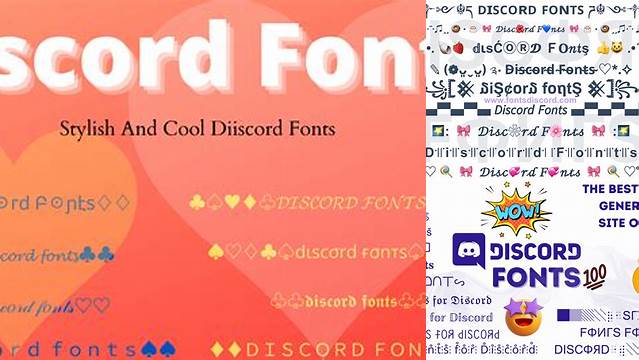
Discord Fonts: Make Your Text Cute & Stylish!
Hey guys! Want to make your Discord messages pop? You've come to the right place! Let's dive into how you can spice up your text with cute and stylish Discord fonts. It's all about expressing yourself, right? Whether you're looking to add a bit of flair to your server announcements or just want your personal messages to stand out, cool fonts are the way to go. So, buckle up, and let's get started!
1. Understanding Discord Font Basics
Before we jump into the fancy stuff, let's cover the basics. Discord uses Markdown, a simple formatting language, to style text. Knowing these basics is crucial for implementing cute fonts effectively. For example, surrounding text with single asterisks () makes it italic, while double asterisks () make it bold. Triple asterisks () make it bold and italic. Using single backticks () creates inline code`, and triple backticks (```) create code blocks. Understanding these Markdown elements allows you to mix and match fonts, adding flair while keeping the messages readable. It's the foundation upon which all your cute font experiments will be built. Think of it as the canvas before you start painting your masterpiece. Without a solid understanding of Markdown, achieving the desired cute aesthetic will be challenging, as you might end up with unreadable or poorly formatted text. Also, remember that different platforms might render Markdown slightly differently, so always double-check your formatting on both desktop and mobile to ensure consistency. By mastering these basics, you'll be well-equipped to create eye-catching and adorable Discord messages. Essentially, Discord font customization revolves around combining these Markdown styles to achieve unique and appealing visual effects. So, familiarize yourself with these basics, and you'll be one step closer to becoming a Discord font master!
2. Exploring Online Discord Font Generators
Okay, so you want cute Discord fonts, but you're not sure where to find them? No problem! Online Discord font generators are your best friend here. These tools let you type in your text and then convert it into various stylish fonts. Just copy and paste the result into Discord. It's super easy! There are tons of websites offering this service, like LingoJam, Cool Fancy Text Generator, and many more. Each site offers a different selection of fonts, so it's worth exploring a few to find the ones you like best. These generators work by using special Unicode characters that appear different but are still recognized as text. The beauty of these tools is that they require no technical skills. You don't need to download any software or install any plugins. Just type, click, and copy. However, keep in mind that some of these fancy fonts might not be readable by all devices or operating systems. Always test your fonts to make sure everyone in your server can see them correctly. Also, be aware of the character limits on Discord. Extremely long and complex fonts might take up more characters than you expect. Online Discord font generators are an excellent way to quickly and easily add some personality to your messages. So, go ahead and experiment with different fonts and find the ones that perfectly match your style and the vibe of your server.
3. Cute Font Styles for Discord: A Detailed Guide
Let's talk about specific cute font styles you can use on Discord! Think about bubbly fonts, cursive fonts, or even fonts with little stars and hearts. The possibilities are endless! Bubbly fonts, for example, can add a playful and friendly tone to your messages. Cursive fonts, on the other hand, can make your text look elegant and sophisticated. And fonts with stars and hearts? Well, those are just plain adorable! To use these styles, you'll typically rely on online font generators. Simply type your message into the generator, choose the style you want, and copy the result into Discord. But remember, readability is key. While it's fun to experiment with different styles, you want to make sure your messages are still easy to read. Avoid fonts that are too cluttered or distorted, as these can strain the eyes and make your messages difficult to understand. Also, consider the context of your message. A bubbly font might be perfect for a casual conversation, but it might not be appropriate for an important announcement. Choose your fonts wisely, and always prioritize clarity. The goal is to enhance your messages, not to make them confusing. By carefully selecting and using cute font styles, you can add a personal touch to your Discord communications and create a more engaging and enjoyable experience for everyone.
4. Combining Fonts for Maximum Cuteness
Why stick to just one font when you can mix and match? Combining different font styles can create a visually appealing and unique effect. For example, you could use a bold font for headings and a cursive font for the main text. Or you could use a bubbly font for emphasis. The key is to use different fonts in a way that complements each other. You don't want to create a visual mess! Start by choosing a primary font that you'll use for most of your text. Then, select one or two secondary fonts to use for headings, subheadings, or emphasis. Make sure the fonts you choose have a similar vibe. For example, if you're using a playful font, you might want to avoid using a formal font. Experiment with different combinations until you find something you like. Also, pay attention to the spacing between letters and words. Some fonts might require more spacing than others. Adjust the spacing as needed to ensure readability. Combining fonts can be a fun and creative way to add personality to your Discord messages. Just remember to use restraint and prioritize readability. With a little practice, you'll be able to create stunning visual effects that will impress your friends and followers.
5. Using Symbols to Enhance Your Cute Fonts
Okay, let's talk symbols! Adding symbols to your text can make it even cuter. Think about hearts, stars, flowers, and other adorable icons. You can find symbols online or use the built-in symbol keyboard on your device. To insert symbols into your Discord messages, simply copy and paste them from another source. There are websites dedicated to providing all sorts of cool symbols. Just search for "Unicode symbols" or "aesthetic symbols" to find a wealth of options. When using symbols, it's important to use them sparingly. Too many symbols can make your text look cluttered and overwhelming. Use them to highlight important words or phrases, or to add a touch of whimsy to your messages. For example, you could add a heart symbol next to a friend's name, or a star symbol to mark an important announcement. Also, consider the meaning of the symbols you use. Make sure they're appropriate for the context of your message. You don't want to accidentally send the wrong message by using a symbol with a negative connotation. Using symbols can be a great way to add personality and flair to your Discord messages. Just remember to use them judiciously and choose symbols that are relevant and meaningful.
6. Discord Text Formatting Codes
Discord uses Markdown, which involves specific formatting codes to style your text. Knowing these codes is essential for making your fonts cute. Let's break it down: surrounding text with single asterisks () makes it italic. Double asterisks () make it bold. Triple asterisks () make it bold and italic. Using single backticks () creates inline code`, and triple backticks (```) create code blocks. You can also use the underscore (_) for italics (though asterisks are more common) and tildes (~) for strikethrough. For example, this text will be crossed out. Mastering these codes allows you to create a variety of effects. You can use bold text to highlight important information, italic text to add emphasis, and strikethrough text to indicate something that's no longer relevant. You can also use inline code to display code snippets or commands. The key is to use these codes in a way that enhances your messages and makes them easier to read. Avoid overusing formatting, as this can make your text look cluttered and confusing. Also, remember that different platforms might render Markdown slightly differently, so always double-check your formatting on both desktop and mobile to ensure consistency. By understanding and using Discord's text formatting codes, you'll be able to create more engaging and effective messages.
7. Mobile vs. Desktop Font Compatibility on Discord
One thing to keep in mind is that font compatibility can vary between mobile and desktop versions of Discord. Some fonts that look great on your computer might not display correctly on someone's phone, and vice versa. To ensure that your cute fonts look good for everyone, it's best to stick to fonts that are widely supported. Standard Unicode fonts are generally safe, as they're recognized by most devices and operating systems. However, some of the more exotic fonts generated by online tools might not be universally compatible. Before you start using a font extensively, it's a good idea to test it on both a mobile device and a desktop computer. Ask a friend to check if they can see the font correctly on their device. If you notice any issues, try using a different font or adjusting your formatting. You can also try using a font generator that specifically optimizes fonts for mobile devices. These generators typically use fonts that are more likely to be compatible across different platforms. Ultimately, the goal is to create messages that are accessible and enjoyable for everyone. By being mindful of font compatibility, you can avoid frustrating your friends and followers and ensure that your messages are always clear and readable.
8. Making Server Announcements with Cute Fonts
Server announcements are a great way to use cute fonts to grab attention. A well-formatted announcement can make your server look more professional and engaging. When creating announcements, it's important to use fonts that are both eye-catching and easy to read. Avoid fonts that are too cluttered or distorted, as these can make your announcements difficult to understand. Instead, opt for fonts that are clean and simple, but still have a touch of personality. You can also use different font sizes and styles to highlight important information. For example, you could use a larger, bolder font for the title of your announcement, and a smaller, regular font for the body text. Adding symbols or emojis can also help to make your announcements more visually appealing. Just remember to use them sparingly, and choose symbols that are relevant to the topic of your announcement. Before you post an announcement, it's always a good idea to preview it to make sure it looks good on both desktop and mobile devices. Ask a friend to take a look and provide feedback. By taking the time to create well-formatted announcements, you can keep your server members informed and engaged.
9. Cute Fonts for Discord Nicknames
Your Discord nickname is a prime spot to show off your cute font skills! It's a way to personalize your identity and stand out from the crowd. To change your nickname, go to your server settings and look for the "Change Nickname" option. From there, you can enter your new nickname using your favorite cute font. Keep in mind that Discord has a character limit for nicknames, so you might need to get creative to fit your desired font. Also, be aware that some fonts might not be compatible with Discord's nickname system. If your nickname doesn't display correctly, try using a different font or simplifying your formatting. It's also important to choose a nickname that's appropriate for the server you're in. Avoid using nicknames that are offensive or disruptive. The goal is to express yourself in a fun and creative way, while still respecting the rules and guidelines of the server. Using cute fonts for your Discord nickname is a great way to add a personal touch to your online presence and make a memorable impression on other members.
10. Adding Flair to Discord Status with Cute Fonts
Your Discord status is another place where you can use cute fonts to express yourself. Whether you're sharing your current mood, promoting your social media, or just adding a bit of humor, a stylish font can make your status message stand out. To change your status, click on your profile picture in the bottom left corner of the Discord window. Then, select "Set a custom status." From there, you can enter your status message using your favorite cute font. Keep in mind that Discord has a character limit for status messages, so you'll need to be concise. Also, be aware that some fonts might not be compatible with Discord's status system. If your status doesn't display correctly, try using a different font or simplifying your formatting. It's also a good idea to update your status regularly to keep it fresh and engaging. A stale status message can make you look inactive or disinterested. Using cute fonts for your Discord status is a great way to add personality and flair to your online presence and let people know what you're up to.
11. How to Create Custom Cute Fonts
If you're feeling adventurous, you can even try creating your own custom cute fonts. This is a more advanced technique, but it can be a lot of fun. There are several online tools and software programs that allow you to design your own fonts. Some popular options include FontStruct, BirdFont, and FontForge. These tools provide a range of features for creating and editing fonts, including drawing tools, character maps, and kerning adjustments. Creating a font from scratch can be a time-consuming process, but it can also be incredibly rewarding. You'll have complete control over every aspect of your font, from the shape of the letters to the spacing between them. When designing a cute font, think about the overall aesthetic you want to achieve. Do you want it to be playful and whimsical, or elegant and sophisticated? Consider the types of symbols and embellishments you want to include. Once you've created your font, you'll need to export it in a format that's compatible with Discord. The most common format is TTF (TrueType Font). After exporting your font, you can use it in Discord by copying and pasting the characters into your messages. Creating custom cute fonts is a great way to express your creativity and make your Discord communications truly unique.
12. Avoiding Font Clutter: Readability Matters
While it's fun to experiment with cute fonts, it's important to avoid font clutter. Too many different fonts and styles can make your messages look messy and difficult to read. Readability should always be your top priority. When choosing fonts, opt for ones that are clean and simple, but still have a touch of personality. Avoid fonts that are too cluttered or distorted, as these can strain the eyes and make your messages difficult to understand. It's also important to use different font sizes and styles sparingly. Too much variation can be distracting and confusing. Stick to a consistent style throughout your messages. Use bold text to highlight important information, italic text to add emphasis, and regular text for the body of your message. When using symbols or emojis, use them judiciously. Too many symbols can make your text look cluttered and overwhelming. Use them to highlight important words or phrases, or to add a touch of whimsy to your messages. By avoiding font clutter and prioritizing readability, you can ensure that your messages are clear, engaging, and enjoyable to read.
13. Best Cute Fonts for Different Discord Themes
Choosing the right cute fonts depends on the Discord theme you're using. A font that looks great on a light theme might not work as well on a dark theme, and vice versa. When using a light theme, opt for fonts that are dark and easy to read. Avoid fonts that are too light or thin, as these can be difficult to see against a bright background. Some good options for light themes include bold sans-serif fonts, such as Arial or Helvetica. When using a dark theme, opt for fonts that are light and easy to read. Avoid fonts that are too dark or heavy, as these can be overwhelming against a dark background. Some good options for dark themes include light sans-serif fonts, such as Open Sans or Lato. You can also experiment with different font colors to find what works best for your theme. For example, you could use a bright color for headings and a more subdued color for the body text. Ultimately, the best way to choose cute fonts for your Discord theme is to experiment and see what looks good to you. Try out different fonts, sizes, and colors until you find a combination that you're happy with.
14. Making Your Discord Profile Aesthetic with Fonts
Your Discord profile is a great place to showcase your aesthetic using fonts. A well-designed profile can make a great first impression and help you stand out from the crowd. You can customize several aspects of your profile, including your username, status, and about me section. When choosing fonts for your profile, consider the overall aesthetic you want to achieve. Do you want it to be cute and playful, or elegant and sophisticated? Choose fonts that reflect your personality and style. You can use different fonts for different sections of your profile. For example, you could use a bold font for your username, a cursive font for your status, and a regular font for your about me section. It's also important to keep readability in mind. Avoid fonts that are too cluttered or distorted, as these can make your profile difficult to read. Stick to fonts that are clean and simple, but still have a touch of personality. By carefully choosing fonts for your Discord profile, you can create a visually appealing and engaging online presence.
15. Cute Fonts for Specific Discord Channels
Using cute fonts can be tailored to specific Discord channels to enhance the channel's theme or purpose. For example, a gaming channel might benefit from a font that's bold and energetic, while a general chat channel might use a more casual and friendly font. When choosing fonts for a specific channel, consider the channel's topic and the tone you want to convey. If the channel is dedicated to a particular game, you might want to use a font that's inspired by the game's logo or artwork. If the channel is for sharing memes and funny content, you might want to use a font that's playful and whimsical. It's also important to consider the readability of the fonts you choose. Avoid fonts that are too cluttered or distorted, as these can make it difficult to follow the conversation. Stick to fonts that are clean and simple, but still have a touch of personality. You can also use different font colors and sizes to differentiate between different types of messages. For example, you could use a bright color for announcements and a more subdued color for regular messages. By carefully selecting fonts for specific Discord channels, you can create a more engaging and visually appealing experience for your server members.
16. Cute Fonts to Express Your Personality on Discord
Expressing your personality is easy with cute fonts on Discord. Let your individuality shine through every message! Your font choices can be a reflection of who you are, adding a unique touch to your online presence. Whether you're bubbly and energetic, or calm and collected, there's a font out there that perfectly captures your essence. Playful fonts with rounded edges can convey a sense of fun and lightheartedness, while elegant cursive fonts can express sophistication and grace. Bold and edgy fonts can showcase your confidence and strength, while delicate and whimsical fonts can highlight your creativity and imagination. Don't be afraid to experiment with different fonts until you find the ones that truly resonate with you. Consider the overall tone and style you want to project, and choose fonts that align with those qualities. You can also use different fonts for different situations to express different aspects of your personality. For example, you could use a playful font when chatting with friends and a more professional font when communicating with colleagues. By using cute fonts to express your personality on Discord, you can create a more authentic and engaging online presence.
17. Discord Bot Integration for Font Customization
While Discord doesn't natively support advanced font customization, some Discord bots can offer limited integration for font-like effects. These bots often use Unicode characters to mimic different font styles. To use these bots, you'll typically need to add them to your server and then use specific commands to format your text. Keep in mind that the availability and functionality of these bots can vary. Some bots might offer a wide range of font styles, while others might only offer a few basic options. It's also important to choose bots that are reputable and trustworthy. Avoid adding bots from unknown sources, as these could potentially compromise the security of your server. Before adding a bot, always read its documentation and understand its capabilities. Make sure it's compatible with your server's rules and guidelines. If you're not sure whether a bot is safe to use, ask for recommendations from other server admins or moderators. Using Discord bot integration for font customization can be a convenient way to add some flair to your messages, but it's important to do your research and choose bots wisely.
18. The Psychology of Cute Fonts: Impact on Communication
The choice of cute fonts can have a subtle but significant impact on communication. Different fonts can evoke different emotions and convey different messages. Understanding the psychology of fonts can help you choose the right fonts to achieve your desired effect. For example, rounded fonts tend to be perceived as friendly and approachable, while angular fonts can be seen as more serious and professional. Cursive fonts can convey elegance and sophistication, while bold fonts can project confidence and authority. When choosing fonts, consider the context of your message and the audience you're communicating with. If you're trying to build rapport with someone, a friendly and approachable font might be a good choice. If you're trying to convey authority or expertise, a more serious and professional font might be more appropriate. It's also important to consider the readability of the fonts you choose. Avoid fonts that are too cluttered or distorted, as these can make it difficult to understand your message. Stick to fonts that are clean and simple, but still have a touch of personality. By understanding the psychology of cute fonts, you can use them to enhance your communication and achieve your desired outcome.
19. Troubleshooting Font Display Issues on Discord
Sometimes, font display issues can occur on Discord. If you're having trouble seeing cute fonts correctly, here are a few things you can try. First, make sure you're using the latest version of Discord. Outdated versions of the app can sometimes have compatibility issues with certain fonts. Second, try clearing your Discord cache. This can help to resolve issues caused by corrupted or outdated data. To clear your cache, go to your Discord settings and look for the "Clear Cache" option. Third, try disabling hardware acceleration. This can sometimes improve font rendering performance. To disable hardware acceleration, go to your Discord settings and look for the "Advanced" section. Fourth, make sure your device's operating system is up to date. Outdated operating systems can sometimes have compatibility issues with certain fonts. If you've tried all of these steps and you're still having trouble, it's possible that the font you're using is not compatible with Discord. Try using a different font or simplifying your formatting. You can also try contacting Discord support for assistance. They might be able to provide more specific troubleshooting steps based on your particular issue.
20. Font Trends: What's Popular in the Discord Community?
Staying up-to-date with font trends can help you keep your Discord communications fresh and engaging. What's considered cute is always evolving, so it's worth keeping an eye on what's popular in the Discord community. Some current trends include the use of bubble letters, cursive fonts with swashes, and fonts with cute symbols like stars and hearts. You can find inspiration by browsing Discord servers, following design blogs, and checking out social media. Look for fonts that are both visually appealing and easy to read. Avoid fonts that are too cluttered or distorted, as these can quickly become outdated. It's also important to consider the overall tone and style of your server or community. Choose fonts that align with the aesthetic you're trying to create. For example, if you're running a gaming server, you might want to use fonts that are bold and energetic. If you're running a more casual and social server, you might want to use fonts that are friendly and approachable. By staying on top of font trends, you can keep your Discord communications looking stylish and engaging.
21. Ethical Considerations When Using Fonts
When using fonts, it's important to consider the ethical considerations. Make sure you have the right to use the fonts you're using. Some fonts are free to use, while others require a license. Using a font without a license can be a violation of copyright law. Before using a font, always check its license agreement to make sure you're complying with its terms. If you're not sure whether a font is free to use, it's best to err on the side of caution and choose a different font. You can find free fonts on websites like Google Fonts and Font Squirrel. These websites offer a wide variety of fonts that are free to use for both personal and commercial purposes. It's also important to use fonts in a way that's respectful and inclusive. Avoid using fonts that are offensive or discriminatory. Choose fonts that are accessible to everyone, including people with disabilities. This means using fonts that are easy to read and that don't rely on color alone to convey meaning. By considering the ethical considerations when using fonts, you can ensure that your communications are responsible and respectful.
22. Cute Fonts and Discord's Terms of Service
It's crucial to ensure that your use of cute fonts complies with Discord's Terms of Service. While Discord doesn't explicitly prohibit the use of custom fonts, it's important to avoid using fonts that could be considered offensive, discriminatory, or harmful. Discord's Terms of Service prohibit content that is illegal, abusive, harassing, threatening, or otherwise objectionable. This includes fonts that could be interpreted as hate speech or that could be used to bully or harass other users. Before using a font, consider its potential impact on others. If you're not sure whether a font is appropriate, it's best to err on the side of caution and choose a different font. You can also consult with other server admins or moderators to get their feedback. It's also important to respect the intellectual property rights of others. Avoid using fonts that infringe on someone else's copyright or trademark. If you're not sure whether a font is protected by copyright, it's best to assume that it is and choose a different font. By adhering to Discord's Terms of Service, you can ensure that your use of cute fonts is responsible and respectful.
23. Future Trends in Discord Font Customization
As Discord continues to evolve, so will the possibilities for font customization. It's exciting to think about the future trends in this area. One potential trend is the development of more advanced font customization options within Discord itself. This could include the ability to choose from a wider range of fonts, adjust font sizes and colors, and even create custom font styles. Another potential trend is the integration of more sophisticated font rendering technologies. This could lead to better font compatibility across different devices and operating systems, as well as improved font readability and aesthetics. We might also see the emergence of new font-related Discord bots and tools. These could offer features like automatic font conversion, font preview, and font recommendation. Ultimately, the future of font customization on Discord will depend on the needs and desires of the Discord community. As users continue to demand more control over their online presence, Discord is likely to respond with new and innovative font customization options.
24. Cute Font Color Combinations for Discord
Choosing the right color combinations for your cute fonts can enhance their visual appeal. The colors you choose can complement the font style and help your messages stand out. When selecting color combinations, consider the overall tone and style you want to convey. For example, pastel colors can create a soft and whimsical effect, while bold colors can project energy and excitement. Some popular color combinations for cute fonts include: Pink and white, Blue and yellow, Green and purple, Orange and teal. You can also experiment with different shades and hues of the same color to create a more subtle effect. For example, you could use a light pink for the font and a darker pink for the background. It's also important to consider the readability of your color combinations. Avoid using colors that are too similar, as this can make it difficult to read your messages. Stick to color combinations that provide good contrast between the font and the background. You can use online color palette generators to help you find color combinations that work well together. By carefully choosing color combinations for your cute fonts, you can create visually stunning and engaging messages.
25. Creating Font-Based Art on Discord
Get creative by creating font-based art on Discord! Use different characters and symbols to form images and designs. This is a fun and unique way to express yourself and add a personal touch to your messages. To create font-based art, you'll need to use a text editor or online tool that allows you to insert special characters and symbols. You can find a wide variety of characters and symbols on websites like Unicode Table and Symbol Salad. Start by sketching out your design on paper. This will help you visualize the final result and plan your character placement. Then, start filling in your design with characters and symbols. Use different characters to create different textures and effects. For example, you could use asterisks to create a rough texture, or periods to create a smooth texture. Don't be afraid to experiment and try new things. The more you practice, the better you'll become at creating font-based art. You can use font-based art to create logos, banners, and other types of graphics for your Discord server. You can also use it to add a personal touch to your messages and express yourself in a unique way.
26. Leveling Up Your Server with Font Consistency
For a polished look, level up your server by focusing on font consistency. This means using the same fonts and styles throughout your server's channels, announcements, and descriptions. Consistency creates a professional and cohesive look that can enhance your server's brand and make it more appealing to new members. Start by choosing a set of fonts that you'll use consistently throughout your server. Consider the overall tone and style of your server when making your font choices. For example, if you're running a gaming server, you might want to use fonts that are bold and energetic. If you're running a more casual and social server, you might want to use fonts that are friendly and approachable. Once you've chosen your fonts, create a style guide that outlines how they should be used in different contexts. For example, you might specify that all channel names should be in a bold font, and that all announcements should be in a larger font size. Share your style guide with your server admins and moderators and encourage them to follow it consistently. By maintaining font consistency, you can create a more professional and engaging experience for your server members.
27. Custom Cute Font Packs for Download
Searching for premade styles? Check out custom cute font packs available for download. These packs often contain a collection of fonts, symbols, and other design elements that you can use to customize your Discord messages. When downloading font packs, it's important to choose reputable sources to avoid downloading malware or other harmful software. Look for font packs that are hosted on trusted websites and that have positive reviews. Before installing a font pack, always scan it with a virus scanner to make sure it's safe. Once you've downloaded a font pack, follow the instructions to install the fonts on your device. You'll typically need to copy the font files to your system's fonts folder. After installing the fonts, you can use them in Discord by copying and pasting the characters into your messages. Keep in mind that some fonts might not be compatible with Discord, so you might need to experiment to find fonts that work well. Using custom cute font packs can be a convenient way to add a personal touch to your Discord messages, but it's important to choose your sources carefully and follow安全 precautions.
28. Cute Fonts and Accessibility: Making Discord Inclusive
It's essential to consider accessibility when using cute fonts to make Discord inclusive for everyone. Some fonts can be difficult to read for people with visual impairments or learning disabilities. When choosing fonts, prioritize readability over aesthetics. Opt for fonts that are clean and simple, with clear and consistent letterforms. Avoid fonts that are too cluttered, distorted, or decorative. It's also important to consider font size and color contrast. Use fonts that are large enough to read easily, and choose color combinations that provide good contrast between the font and the background. You can use online tools to check the color contrast of your font combinations and ensure that they meet accessibility guidelines. If you're using special characters or symbols, provide alternative text descriptions for users who can't see them. You can also use screen readers to test the accessibility of your messages and ensure that they're understandable for people with visual impairments. By considering accessibility when using cute fonts, you can create a more inclusive and welcoming environment for all Discord users.
29. Monetizing Your Cute Font Skills on Discord
If you're skilled at creating cute fonts or font-based art, you might be able to monetize your skills on Discord. One way to do this is to offer custom font design services to other users. You could create custom fonts for their profiles, servers, or messages. You can advertise your services on Discord servers, social media, or online marketplaces. Set your prices competitively and showcase examples of your work to attract customers. Another way to monetize your font skills is to create and sell font packs or design assets. You could create a collection of cute fonts, symbols, and design elements and sell them as a package. You can sell your font packs on online marketplaces or through your own website. Make sure you have the legal rights to sell the fonts and assets you're offering. You can also monetize your skills by offering tutorials or workshops on font design and customization. Share your knowledge and expertise with others and help them learn how to create their own cute fonts. By monetizing your cute font skills on Discord, you can turn your passion into a profitable venture.
30. Maintaining a Consistent Brand with Fonts
Maintaining a consistent brand is crucial, and fonts play a significant role. By using specific cute fonts that match your brand's aesthetic, you ensure visual harmony across all your Discord communications. Start by defining your brand's personality and values. This will help you choose fonts that accurately reflect your brand's identity. For example, if your brand is playful and fun, you might want to use fonts that are whimsical and lighthearted. If your brand is sophisticated and elegant, you might want to use fonts that are classic and refined. Once you've chosen your fonts, create a brand style guide that outlines how they should be used in different contexts. For example, you might specify that your logo should always be in a particular font, and that your website headings should be in a different font. Share your brand style guide with your team members and ensure that everyone is following it consistently. Regularly review your brand's font usage and make adjustments as needed. As your brand evolves, your font choices might need to evolve as well. By maintaining a consistent brand with fonts, you can create a strong and recognizable identity that will resonate with your audience.